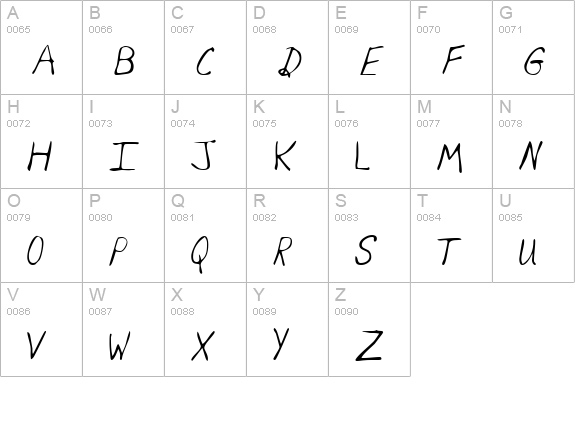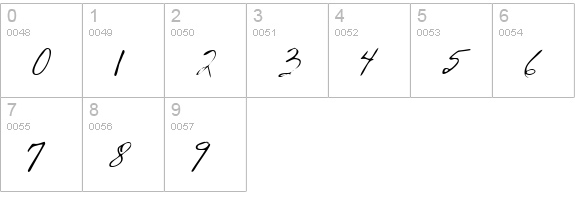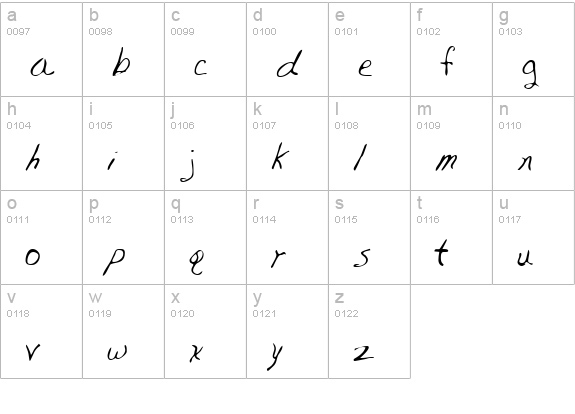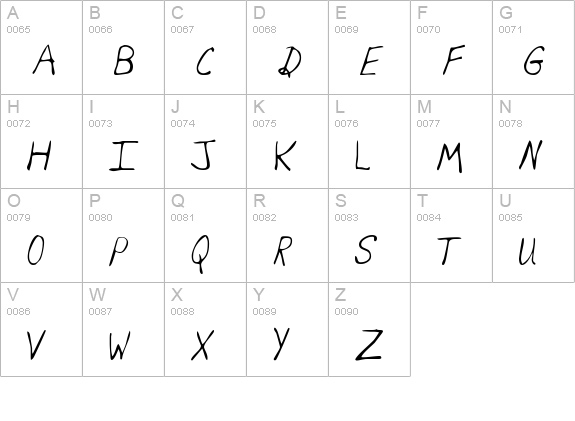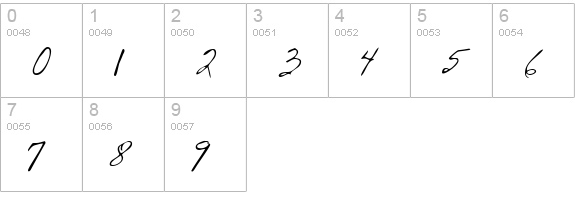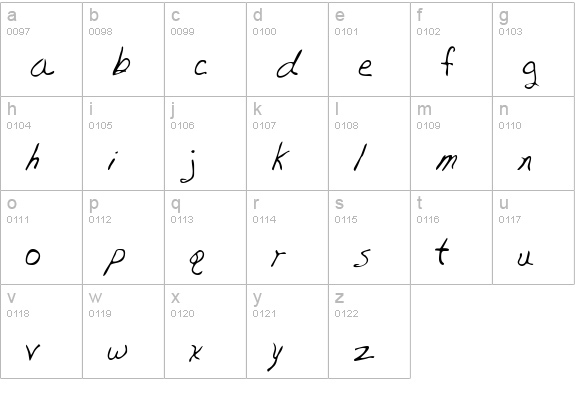
EdmondsHand Regular Font Details
EdmondsHand Regular is the standard, neutral variant in the EdmondsHand typeface family \xE2\x80\x94 well suited to general body text, paragraphs, and standard typographic work.
Introducing EdmondsHand Regular, a charming and versatile font that effortlessly combines elegance with a touch of handwritten flair. Designed with meticulous attention to detail, this font is perfect for adding a personal and unique touch to any project. EdmondsHand Regular features a smooth and flowing script, with slightly slanted characters that exude a sense of grace and sophistication. Its gentle curves and refined strokes create a harmonious balance, making it suitable for a wide range of applications. Whether you're looking to elevate your branding materials, enhance your invitations, or simply add a touch of elegance to your personal projects, EdmondsHand Regular is the ideal choice. Its timeless appeal and handcrafted feel will captivate your audience and leave a lasting impression. But the best part? EdmondsHand Regular is free to download at FontsMarket.com. Yes, you heard that right - this stunning font is freely available, allowing you to unleash your creativity without any financial constraints. It's a rare opportunity to get your hands on a high-quality font that combines style and affordability. So why wait? Embrace the beauty of EdmondsHand Regular and take your designs to new heights. Download it now from FontsMarket.com and let your imagination run wild. With this font by your side, the possibilities are endless.